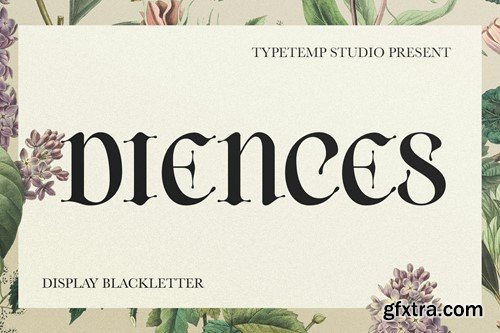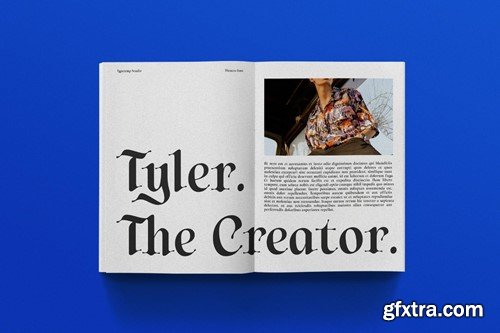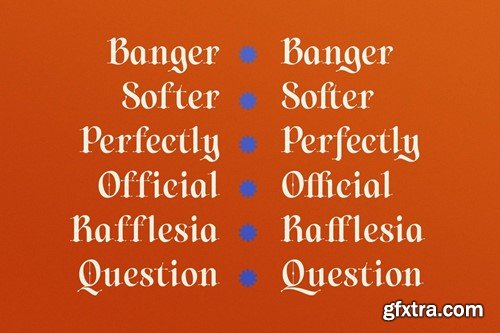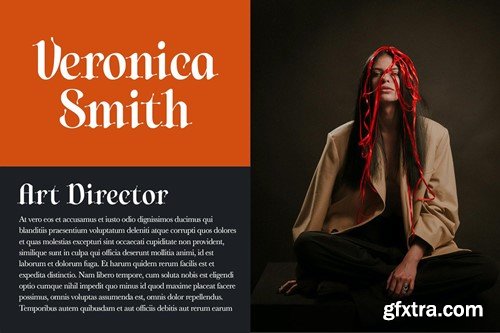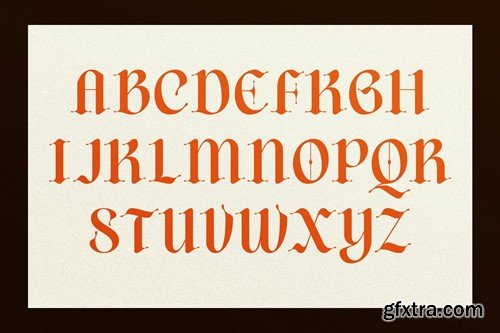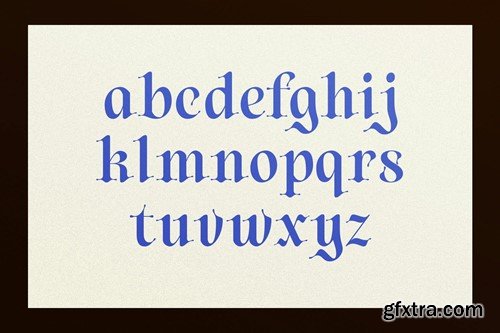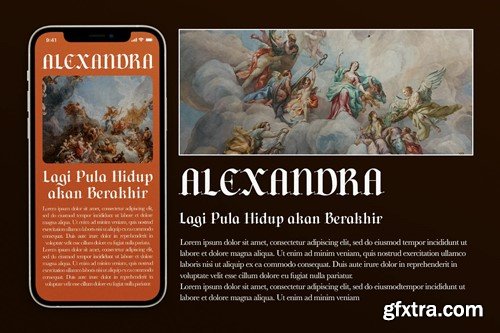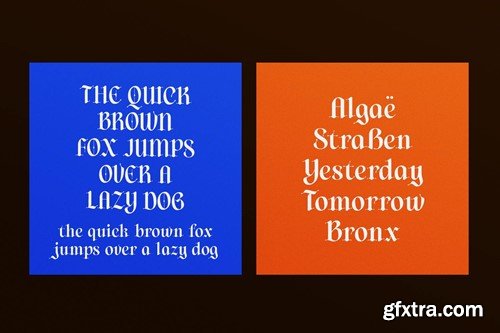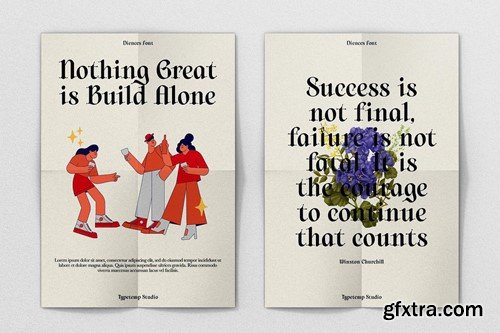
迪恩斯黑体字体 DWCA3QK
Diences Blackletter Font DWCA3QK
Diences Blackletter Font
Diences is a Display Blackletter Font with an elegant and modern style. Comes with alternates and ligatures, helps to create stunning logos, quotes, posts, branding projects, magazine imagery, poster, and much more.
• Unique Letterforms